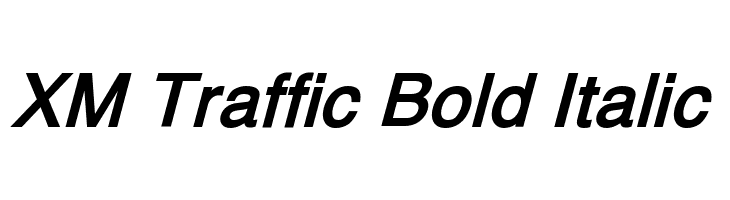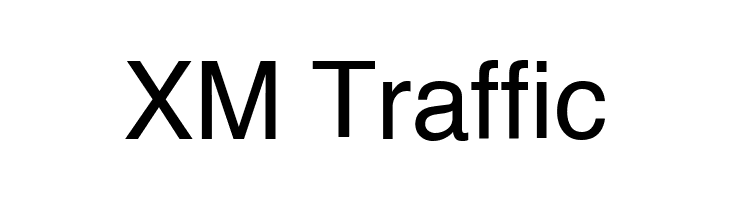
A clean, modern sans-serif font with consistent stroke width and excellent readability.
A bold, clean sans-serif font with excellent readability and a modern aesthetic.
A bold, italicized font with a strong, dynamic appearance.
A modern, italic font with clean lines and dynamic slant.
A modern, clean sans-serif font with excellent readability and balanced character spacing.
A bold, modern sans-serif typeface with clean lines and strong presence.
A bold, italicized font with strong, thick strokes and a dynamic slant.
A modern italic font with smooth curves and clean lines.
A modern, geometric sans-serif font with clean lines and uniform strokes.
A bold, modern sans-serif font with clean lines and balanced spacing.